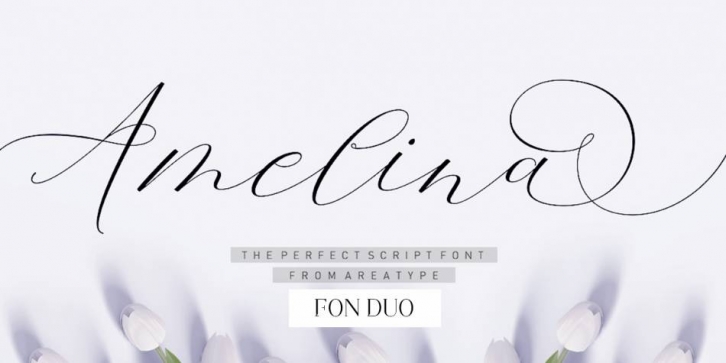
Amelina script is a hand display, modern calligraphy and script font family. This typeface has two styles and was published by Area Type Studio.
Amelina script one is a lovely, modern calligraphic script. It features dynamic and pretty swashes and can be used for many purpose, Also with Amelina script two additions, harmony script fonts to be combined with Amelina script one. such as titles, signatures, logos, wedding invitations, letterhead, signage, labels, newsletters, posters, badges, etc.